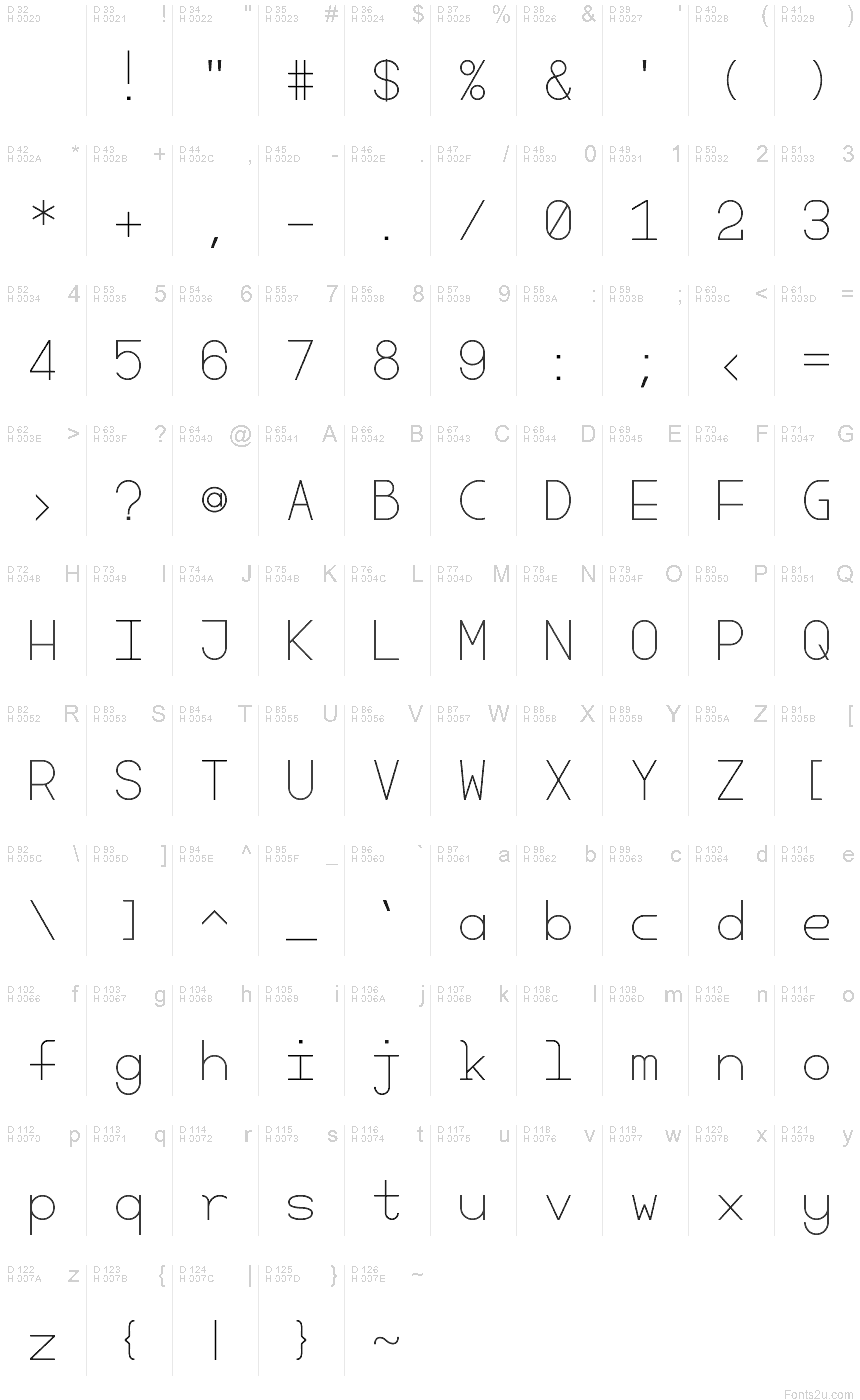
Cherry Monospace-Light
This font is a light version of Cherry-Monospace typeface and designed(and recommended) in order to write programs codes (but also it's smooth enough for using in large scales).font has not any lookup tables,either for kerning or substitution.
Amin Abedi